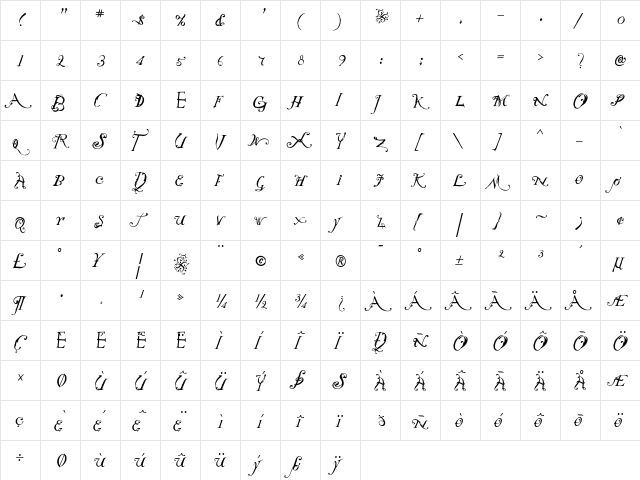
NotCaslon Medium
| Foundry | C) Emigre Graphics; Designed by Mark Andresen |
Design Context for NotCaslon Typeface
NotCaslon is a composed and adaptable typeface that performs quietly and consistently across a wide range of design contexts.